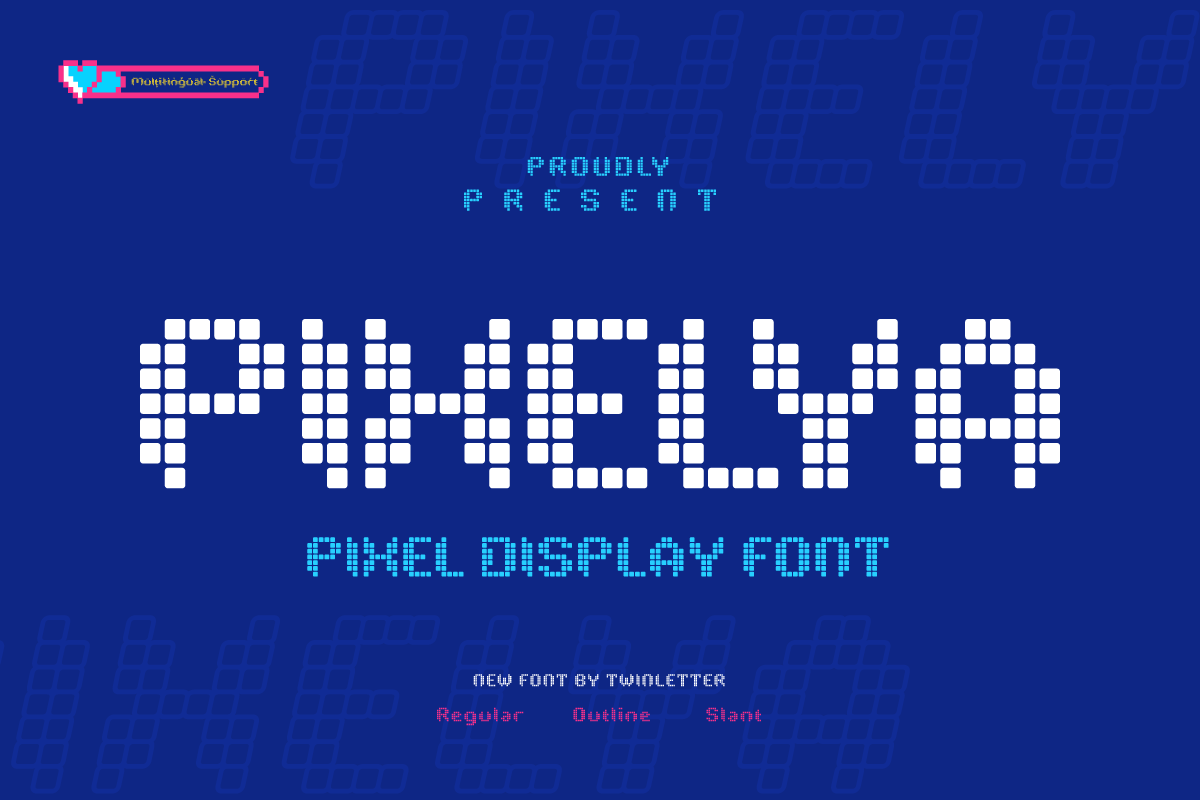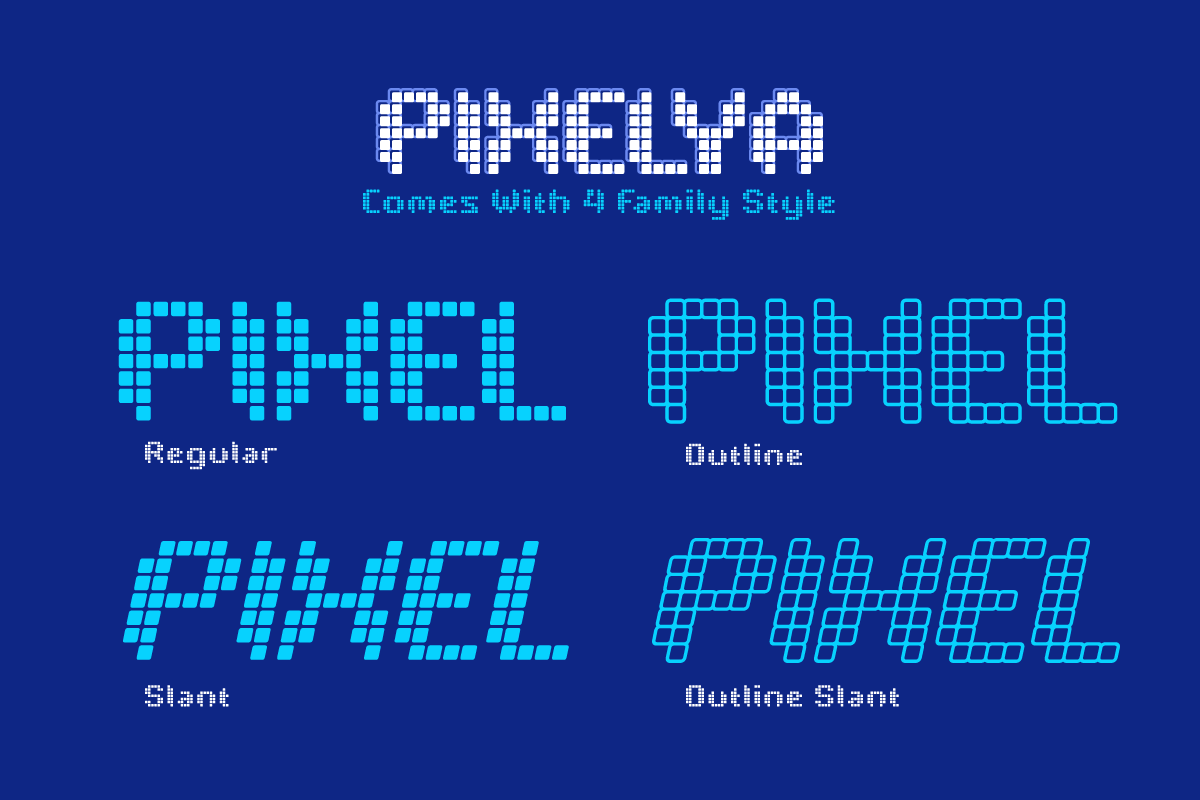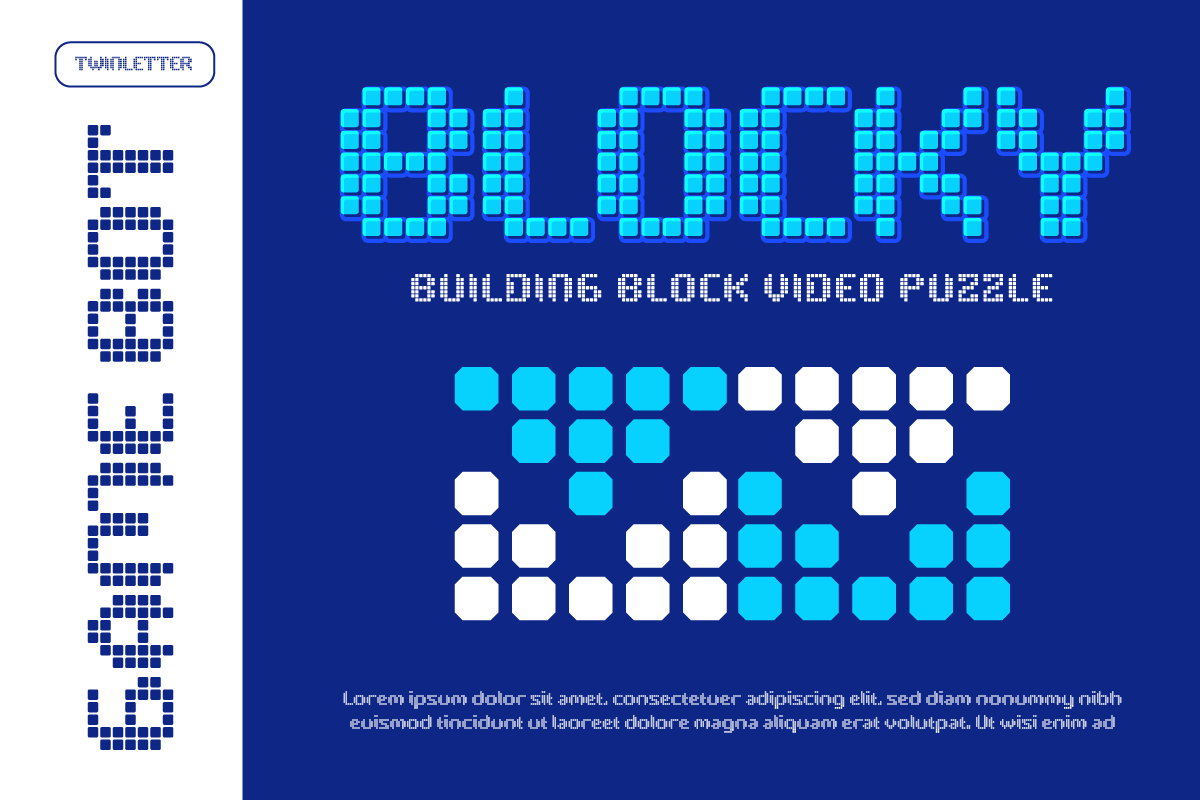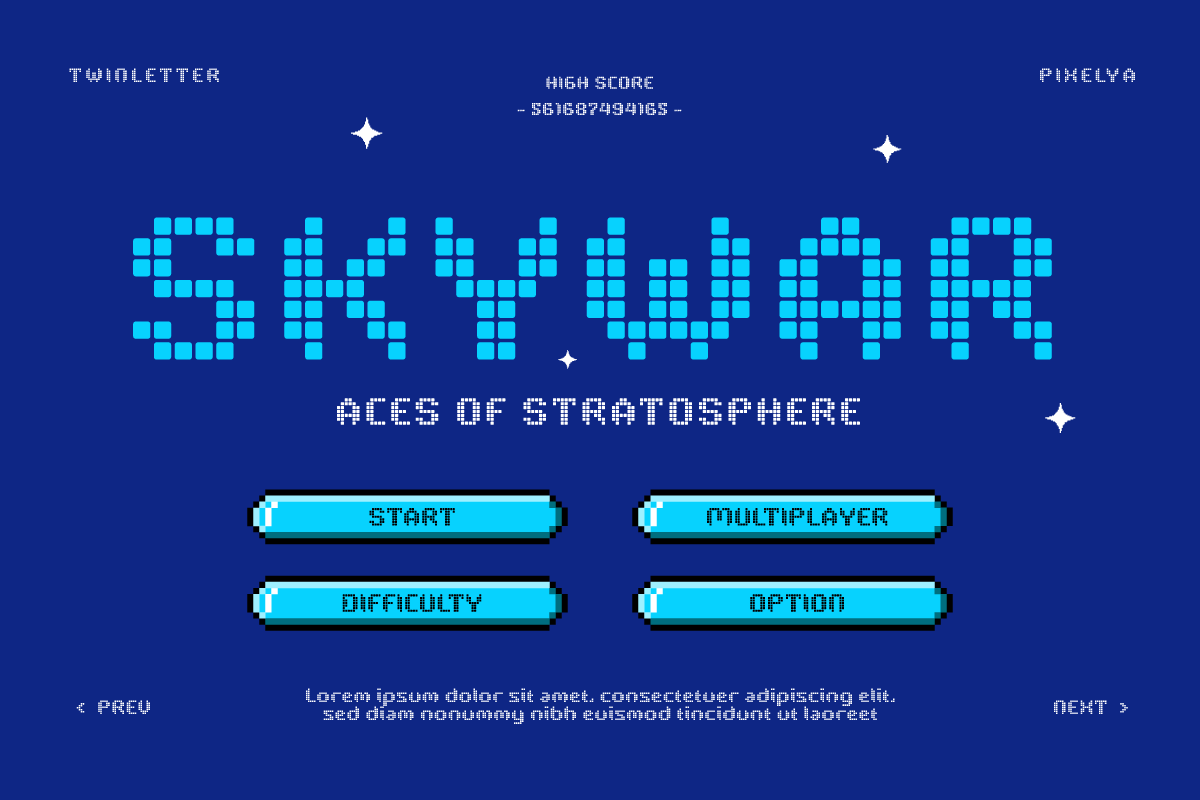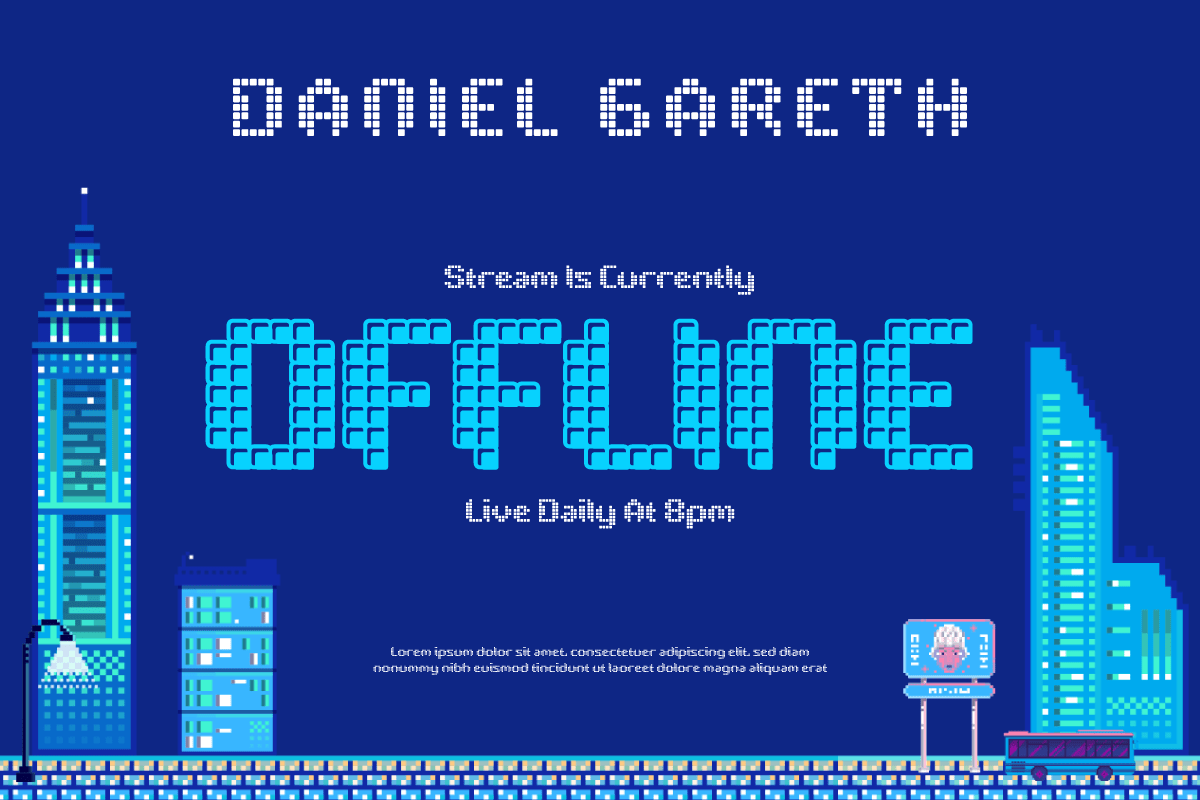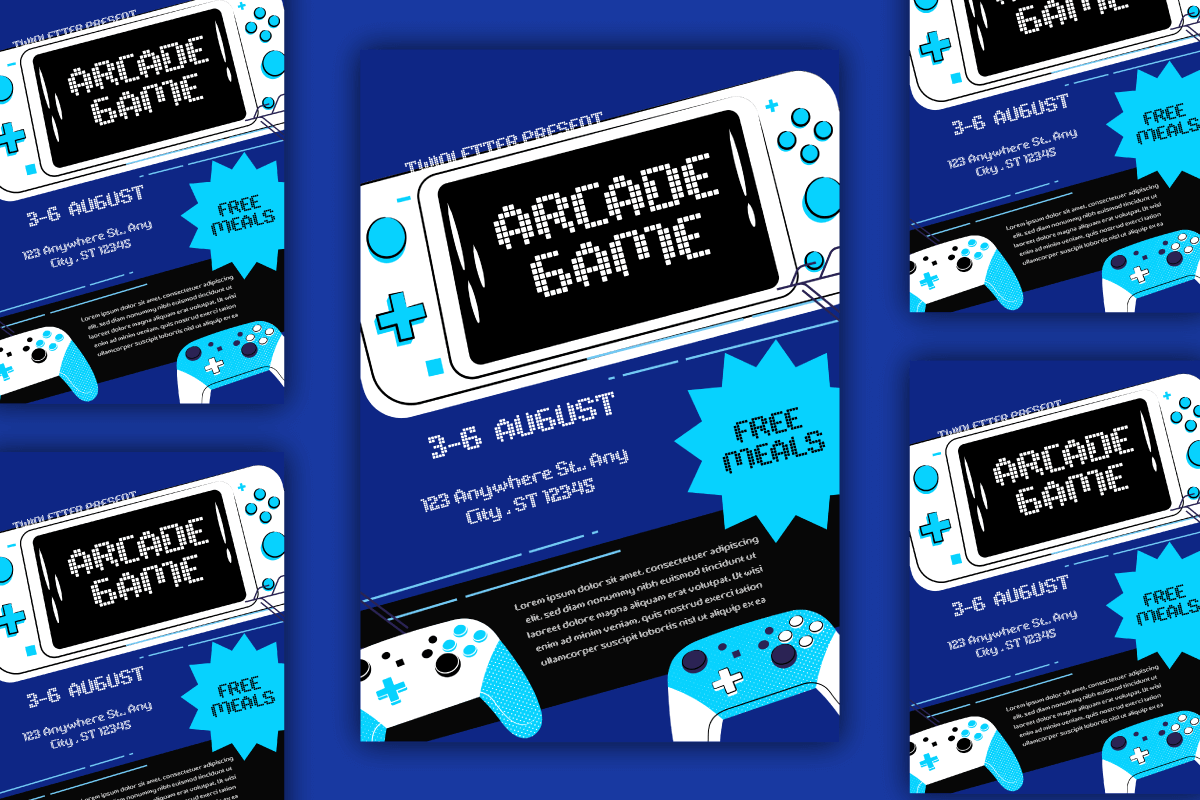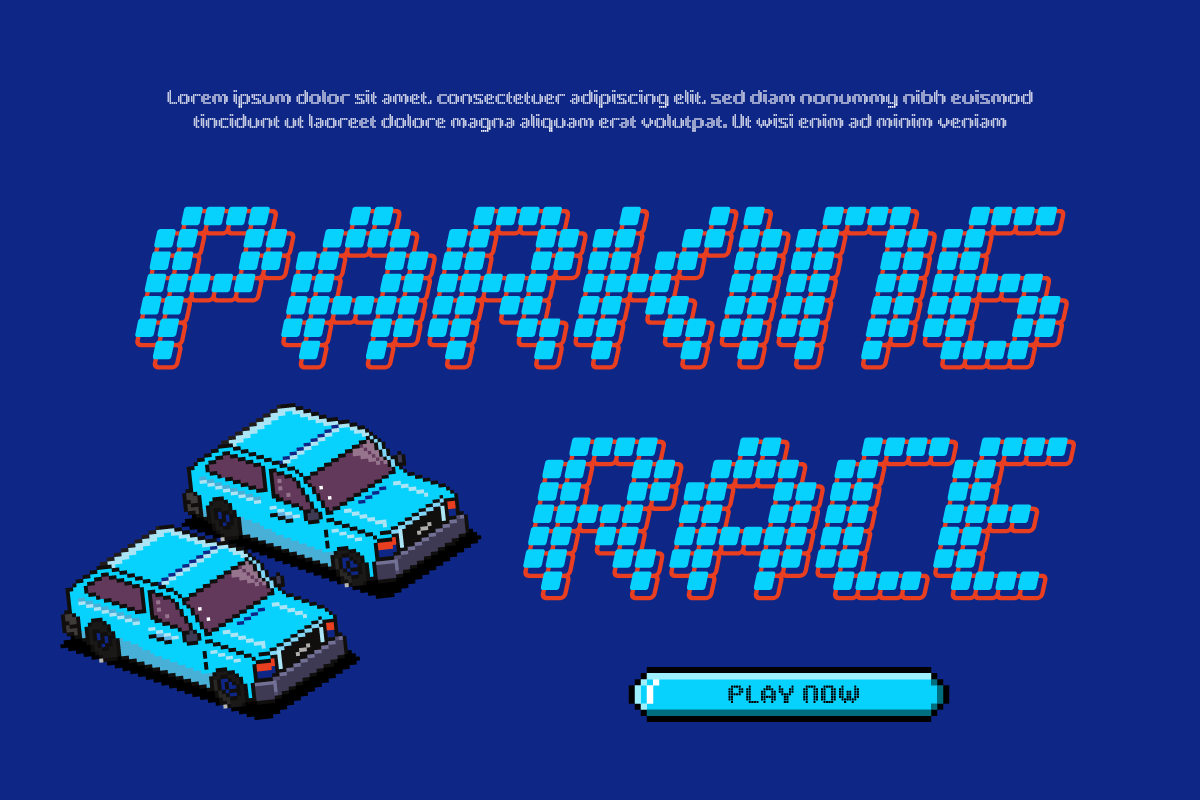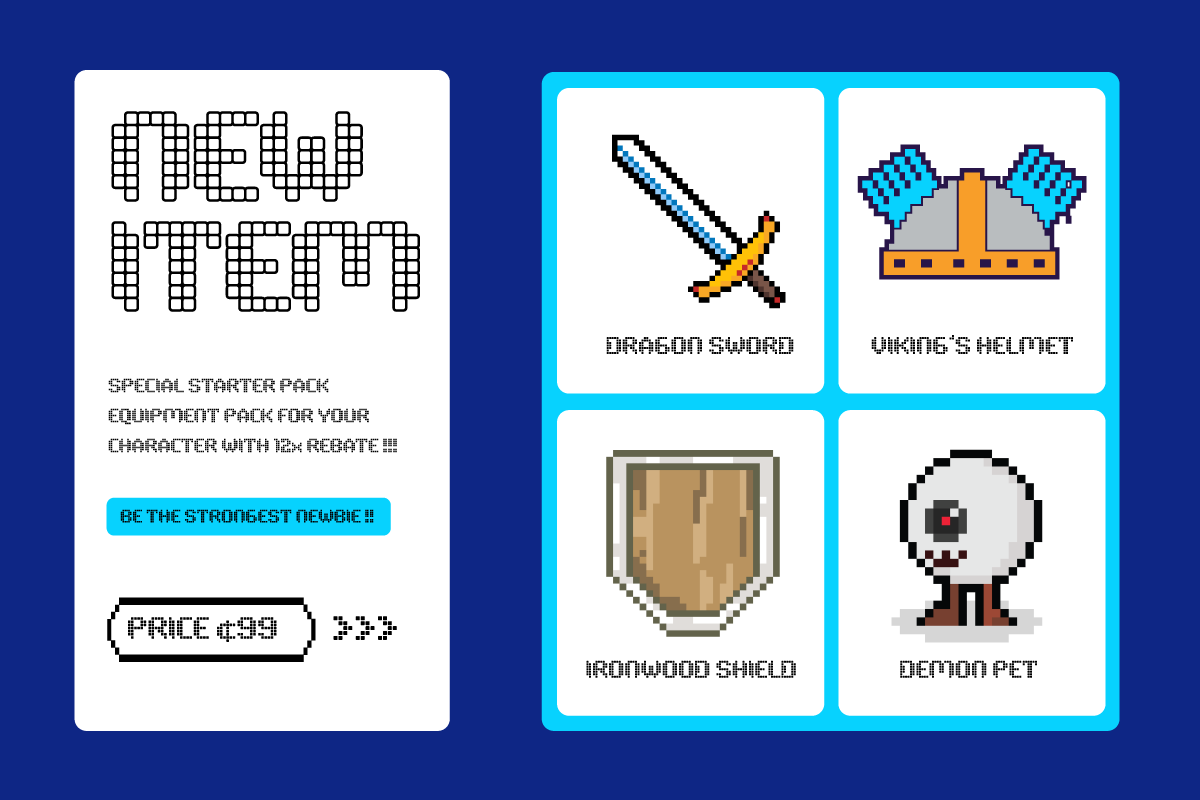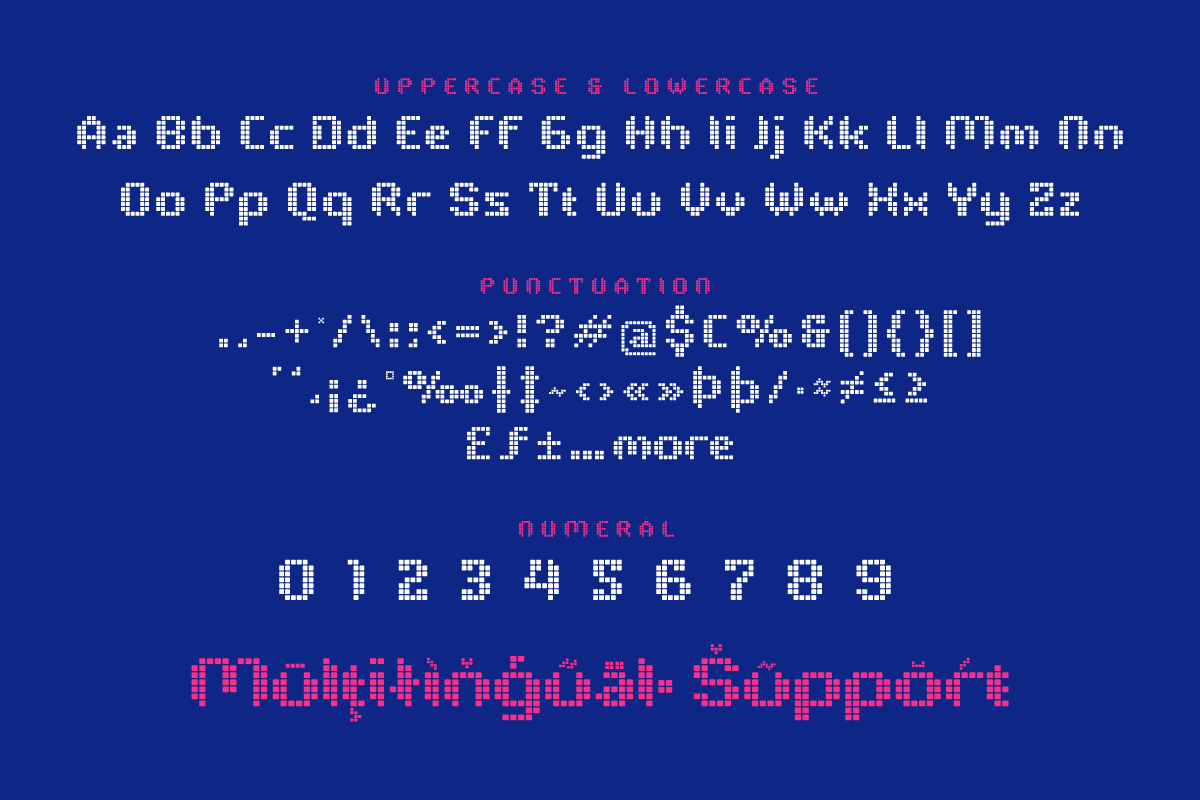
Pixelya – Pixel Display Font
Pixelya is a display typeface that embraces the pixel aesthetic, creating a look suitable for gaming projects and designs with a pixel art feel. This font is designed to express a retro touch and creative elements in a visual experience, often used in game titles, in-game text, or other design elements that require a pixelated aesthetic.
Each letter in Pixelya emits vivid pixel characteristics, creating a look true to the classic video game era. The font maintains clarity and readability while featuring a signature pixel art graphic style that invites joy and nostalgia.
Pixelya’s color palette can include a variety of bright and contrasting colors, similar to the color palettes often used in retro games. Using these colors can enhance the aesthetics of pixel art and give it an attractive appearance.
Pixelya is ideal for those who want to give a classic touch to their game design projects or create a fun retro atmosphere. This font can create an authentic visual experience and give a unique character to designs inspired by the world of classic video games.